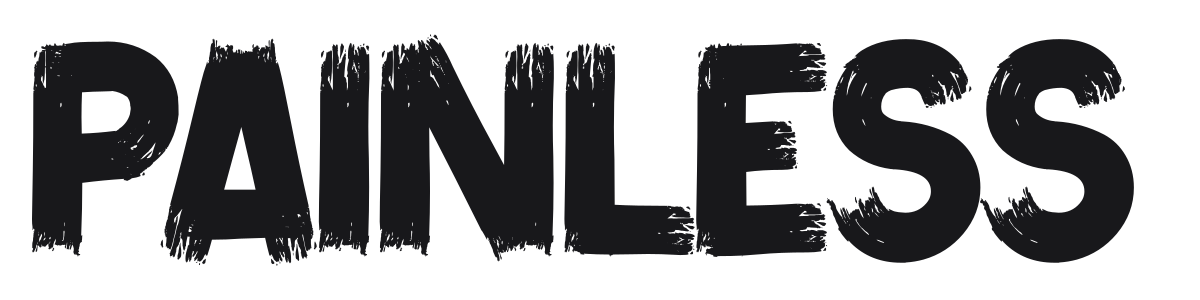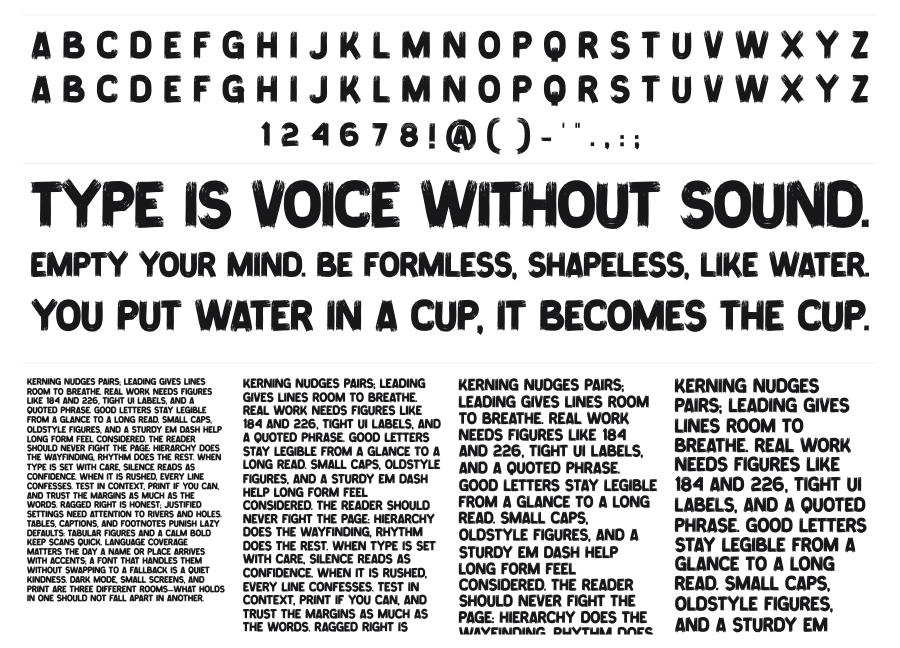
Painless
Painless is a heavy distressed sans with aggressive brush-painted texture that makes every character look like it was slapped onto a wall with a battered paintbrush. The bold, blocky construction gives it structural weight while the rough, eroded edges keep things raw and unpredictable. A natural choice for band posters, streetwear, gaming, and anything that needs attitude at large sizes.